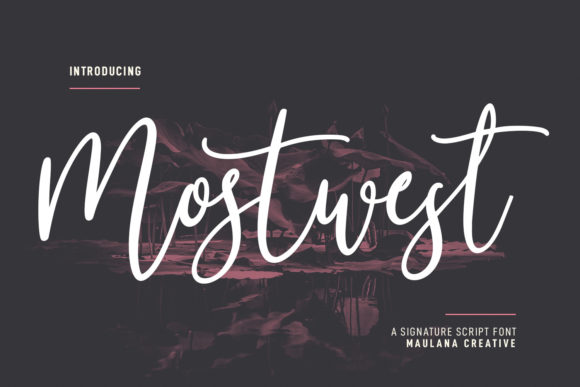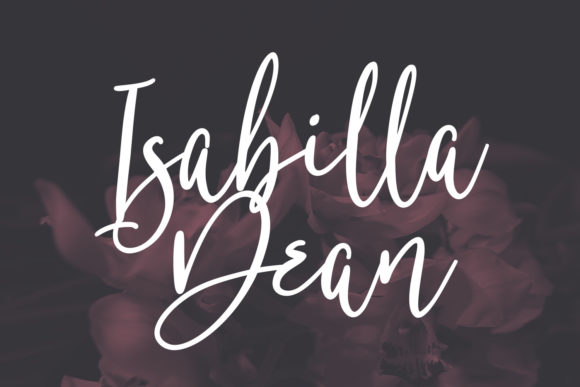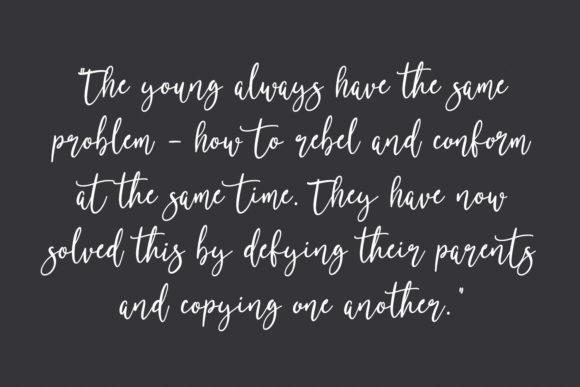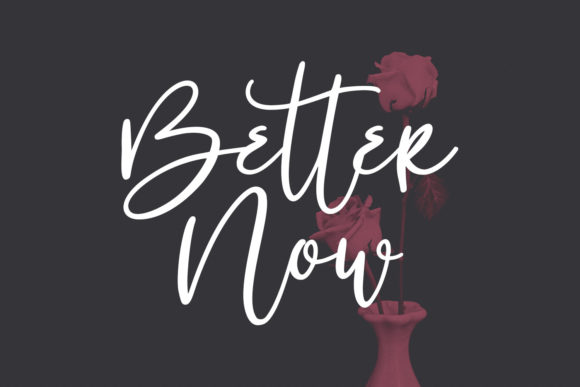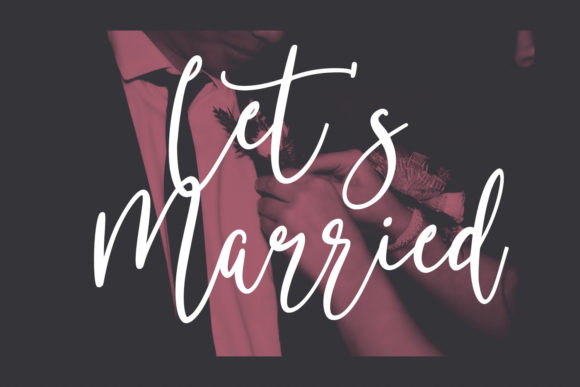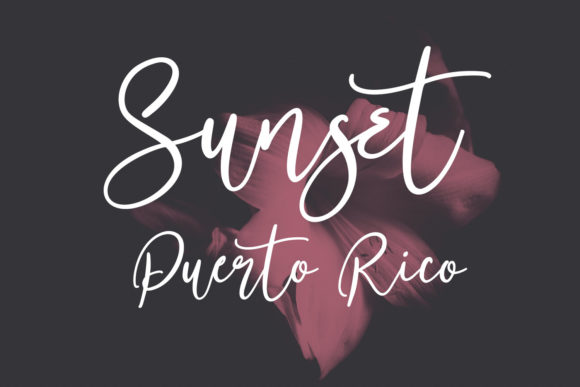
Mostwest Script Font
About Mostwest Script Font
Mostwest Script is a stylish and incredibly elegant script font. It looks stunning on wedding invitations, thank you cards, quotes, greeting cards, logos, business cards and every other design which needs a handwritten touch.